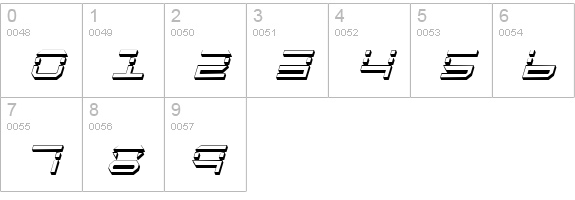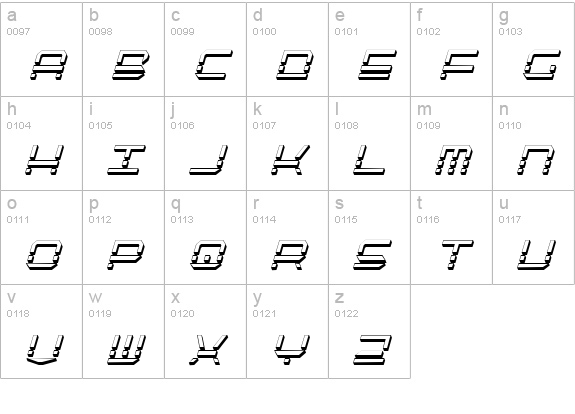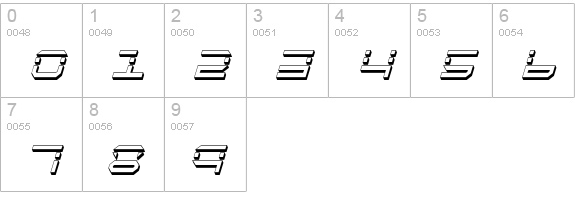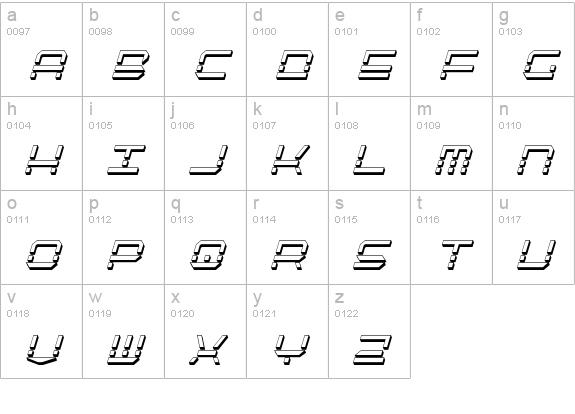
Introducing QuickQuick Shadow ItalCondensed, a stylish and versatile font that adds a touch of elegance and sophistication to any design project. This unique typeface combines the sleekness of a condensed font with the boldness of a shadow effect, creating a stunning visual impact. Perfect for a wide range of applications, QuickQuick Shadow ItalCondensed is ideal for logos, headlines, posters, and any other design that requires a modern and eye-catching aesthetic. Its sleek and slender letterforms make it particularly well-suited for projects where space is limited, allowing you to maximize the impact of your message without sacrificing readability. But what sets QuickQuick Shadow ItalCondensed apart from other fonts is not just its stylish appearance, but also its versatility. With a wide range of weights and styles available, including regular, bold, italic, and shadow, this font offers endless possibilities for creative expression. Whether you're looking to create a bold and impactful design or a more subtle and refined look, QuickQuick Shadow ItalCondensed has you covered. And the best part? QuickQuick Shadow ItalCondensed is available for free! That's right, you can download this amazing font at FontsMarket.com without spending a penny. So why wait? Enhance your designs with QuickQuick Shadow ItalCondensed and take your creativity to new heights.